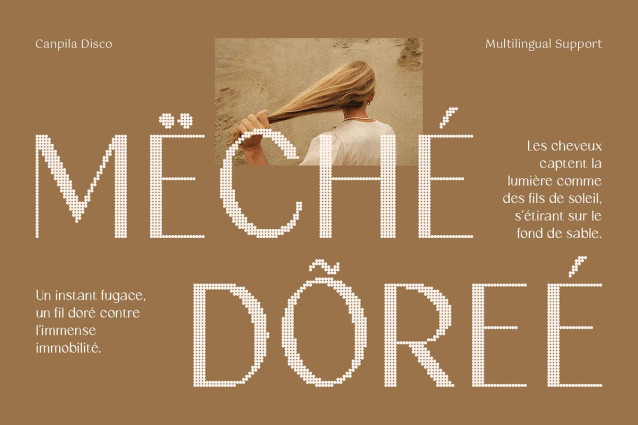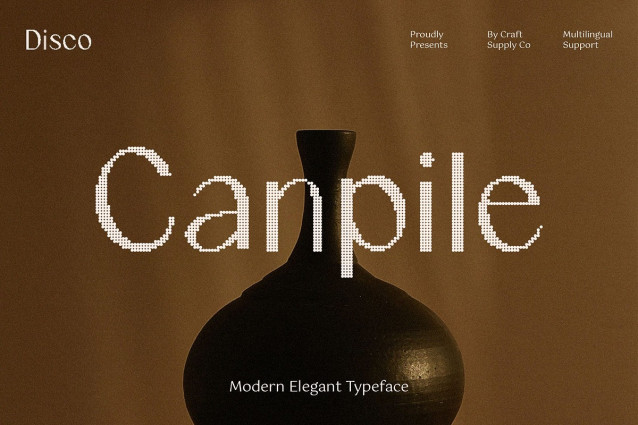
Canpile Disco Font
Canpile Disco Font – This is a modern sans serif font built on clarity and precision. Its confident letterforms feature clean lines and a balanced structure, making it ideal for designs that demand strength and legibility. Whether in digital or print applications, the font maintains a sleek and polished appearance.
Sparkling Disco Overlay for Glamour What sets Canpile Disco apart is its shimmering disco-inspired detail. A sparkling overlay introduces vibrancy and flair, transforming the straightforward sans serif into something bold and eye-catching. This touch of glamour ensures the typeface makes a lasting impression in projects that aim to stand out.
Balancing Professionalism with Personality This font combines the professionalism of a sans serif with the artistic charm of decorative elements. The result is a versatile font that feels equally at home in corporate branding as it does in creative campaigns. Its clarity provides reliability, while the sparkle effect injects personality and energy.
Perfect for Headlines and Branding This font thrives in applications where visibility and impact are essential. From striking headlines to editorial spreads, logos, and modern branding, provides both strength and sparkle. Designers can use it to convey authority while keeping their visuals stylish, glamorous, and contemporary.